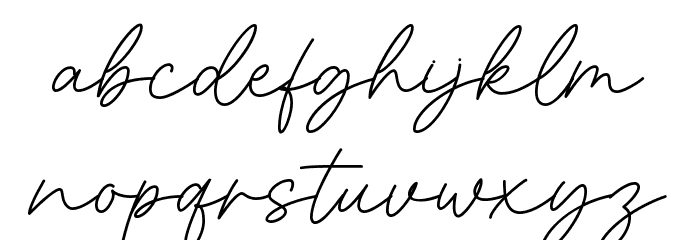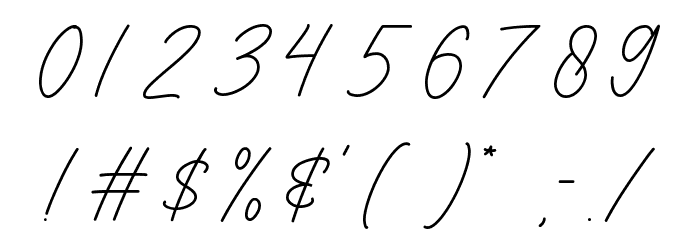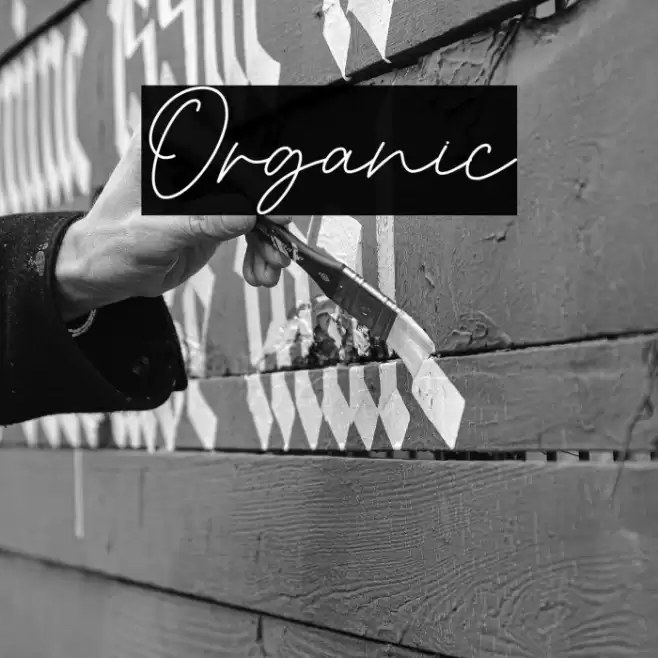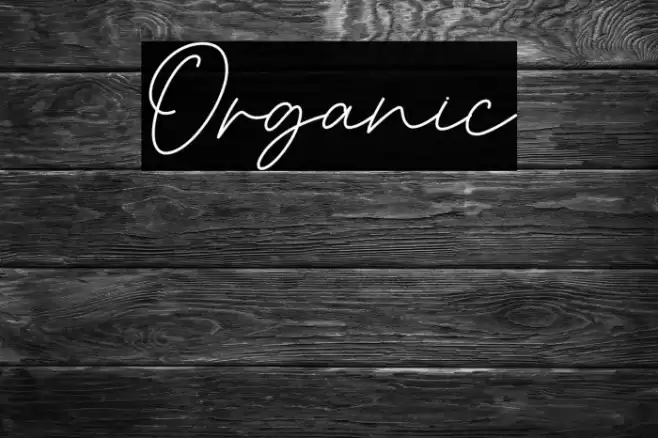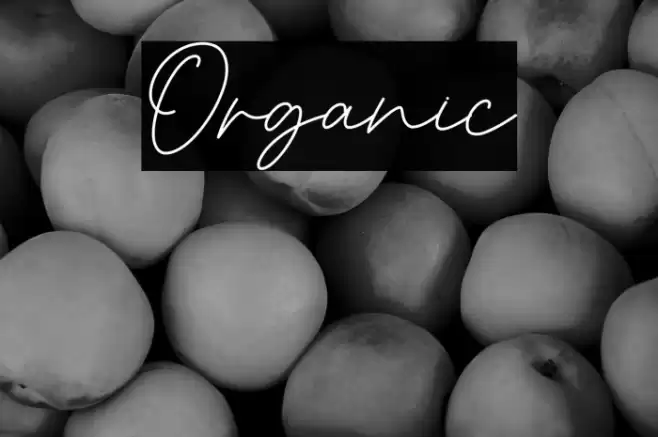
Organic Font
This font exudes a natural and flowing elegance, characterized by its smooth, cursive script style. The letters are interconnected, creating a seamless and continuous line that mimics the fluidity of handwriting. Each character is crafted with a delicate balance of curves and loops, giving it a graceful and sophisticated appearance. The uppercase letters maintain a consistent height, while the lowercase letters vary slightly, adding to the organic feel. The numerals and special characters are designed to complement the overall style, maintaining the same fluidity and elegance. This font is perfect for projects that require a personal touch, such as invitations, greeting cards, or branding materials that aim to convey warmth and approachability.
A flowing, cursive script font with elegant, interconnected characters.
- Font: Organic
- Proposed Projects: Ideal for invitations, greeting cards, personal branding, and any project requiring a handwritten touch.
- Overall Style: Organic, Elegant
- Use Case: Logos, Invitations, Greeting Cards